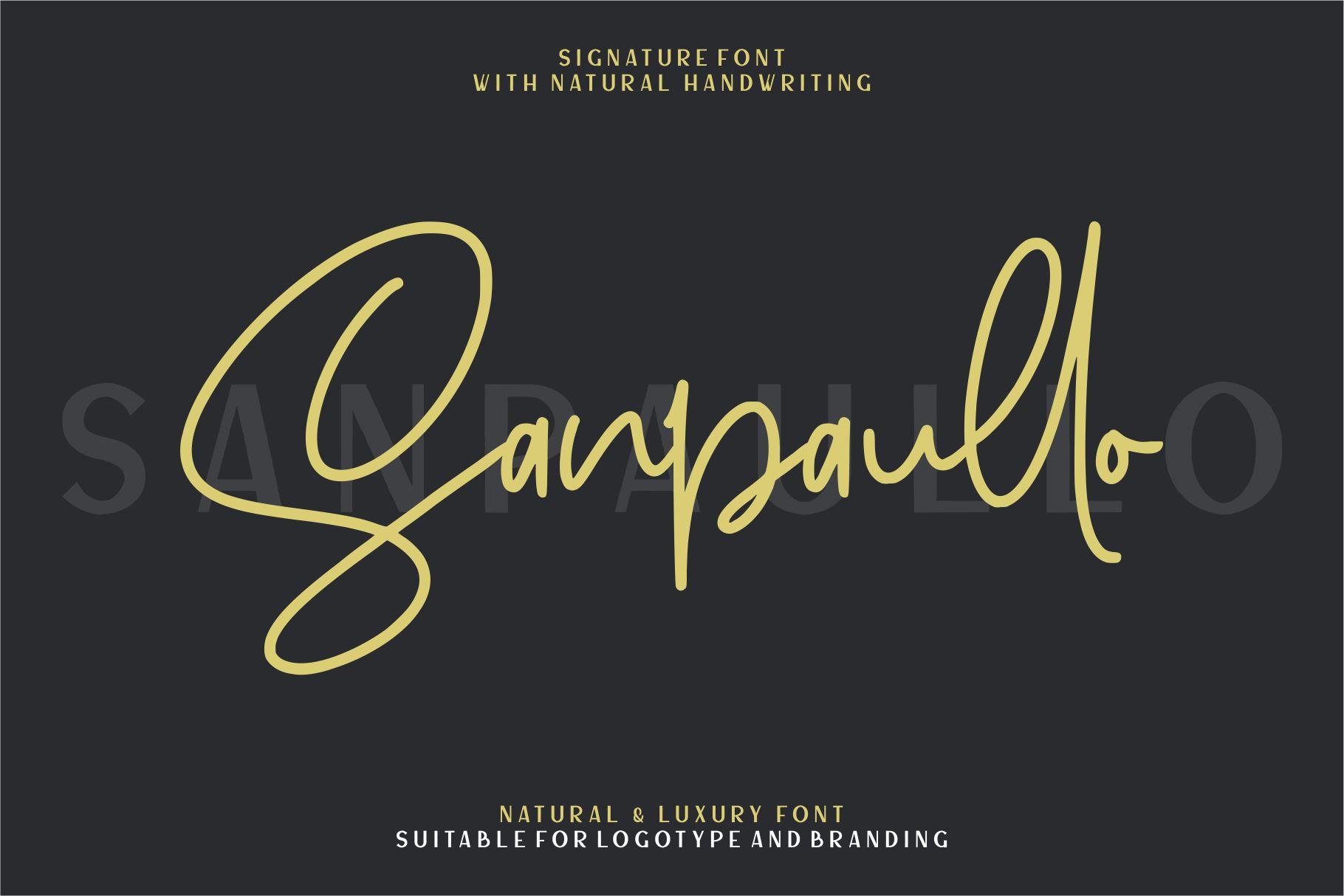
Sanpaullo - Signature Font
Introducing Sanpaullo - Handwritten Font
Sanpaullo is a natural signature font, this font Is perfect for logo, invitation, stationery, wedding designs, social media posts, advertisements, product packaging, product designs, label, photography, watermark, special events or anything.
Sanpaullo comes with full set of uppercase and lowercase letters, multilingual symbols, numerals, punctuation.